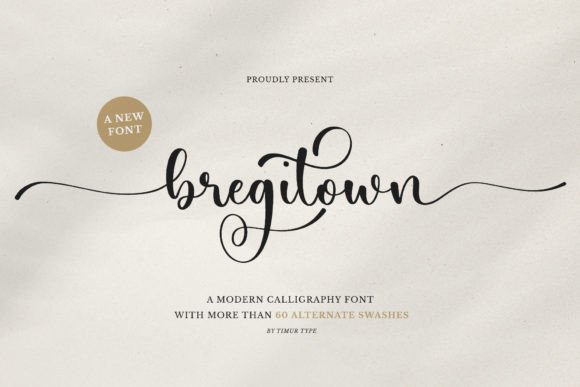
Looking for the best font for logo design 2017? Look no further than Bregitwon Font! This exquisite script font, created by Timur Type, exudes modern elegance and sophistication, making it the perfect choice for adding a touch of refinement to any project.
With its graceful curves and refined lines, Bregitwon Font is the epitome of timeless beauty. Whether you're designing wedding invitations, branding materials, or other projects that require a touch of luxury, this font will help elevate your designs to new heights.
One of the standout features of Bregitwon Font is its PUA encoding. This means that you can easily access all of the font's glyphs and swashes, making it a versatile option for any project. Plus, the font's keyword "best font for logo design 2017" highlights its relevance and appeal for modern design trends.
But Bregitwon Font isn't just versatile and stylish. It also has an emotional impact, conveying a sense of sophistication, refinement, and luxury. Whether you're designing for a high-end brand or simply want to elevate your project, Bregitwon Font is the perfect choice.